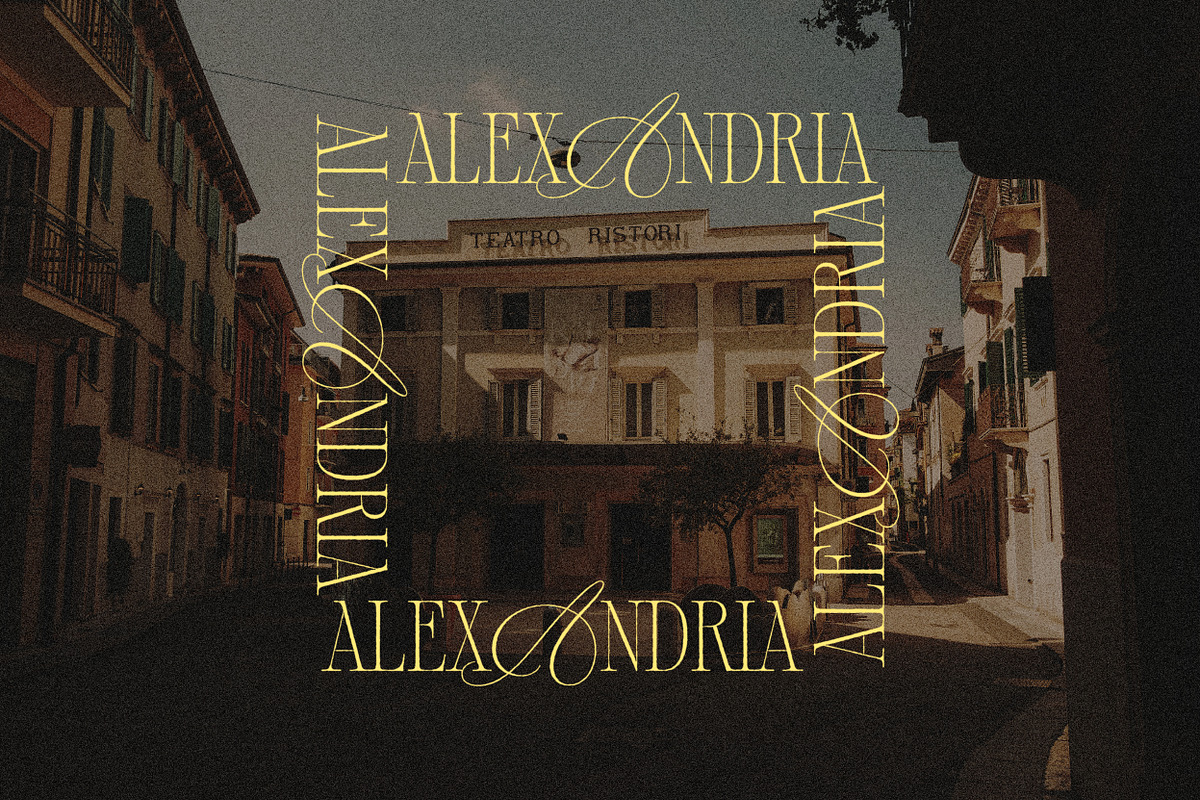
Alizée is an exquisite fusion of calligraphy and serif typeface, exuding a vintage charm and nostalgic feel that makes it perfect for a wide array of design applications. This unique blend of styles infuses every design with an added touch of sophistication.
Ideal for branding initiatives, editorial designs, and social media content, Alizée offers versatility in its three styles: Regular, Petite, and Grande.
The Petite style presents a mix of calligraphic uppercase and serif lowercase, while the Grande style pairs calligraphic uppercase with uppercase serif, lending diverse aesthetic options to your design toolkit.